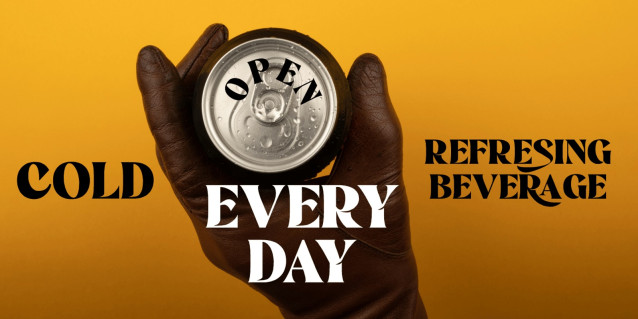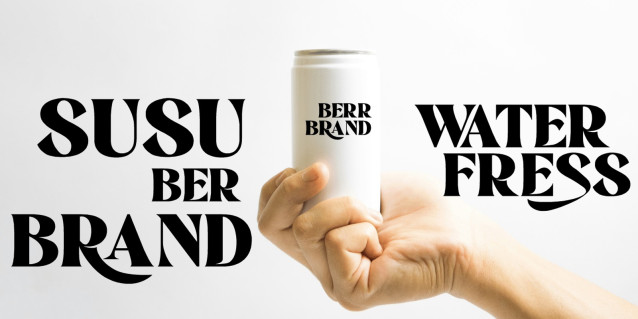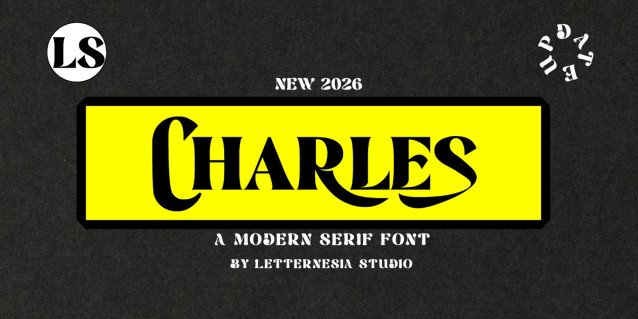
Lscharles Font
Lscharles Font is a bold and stylish display font designed to make a strong visual statement. With its unique character shapes and modern aesthetic, this font is perfect for headlines, logos, branding, posters, packaging, and creative design projects. LSCHARTES brings a confident and eye-catching look that instantly grabs attention. Its distinctive letterforms give a premium and contemporary feel, making it ideal for designers who want to create standout typography. Whether used for digital or print designs, LSCHARTES adds personality, strength, and visual impact to any composition.